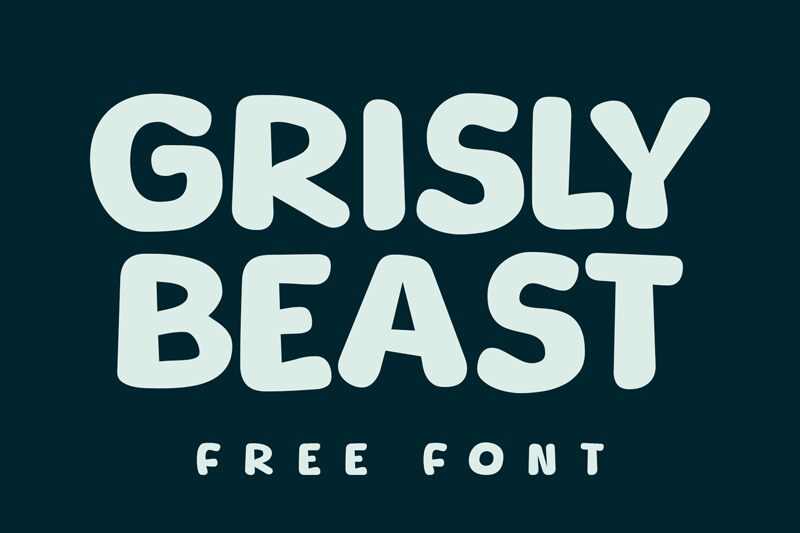
Grisly Beast Regular
Grisly Beast emerges from the creative mind of Niskala Huruf as a playful yet bold display font with a cartoon style that brims with personality. Its semi-expanded width and hefty weight give it a presence that is hard to ignore, making it ideal for projects that demand attention. The exaggerated forms and jaunty curves of Grisly Beast lend it an air of lighthearted mischief, while its robustness ensures legibility across various applications.
This font's unique character shines in contexts requiring a touch of whimsy without sacrificing impact—think book covers, animated movie titles, or eye-catching posters. Grisly Beast's aesthetic appeal lies in its ability to convey fun and vibrance while maintaining a strong visual foundation, making it an excellent choice for designers looking to inject energy into their work.